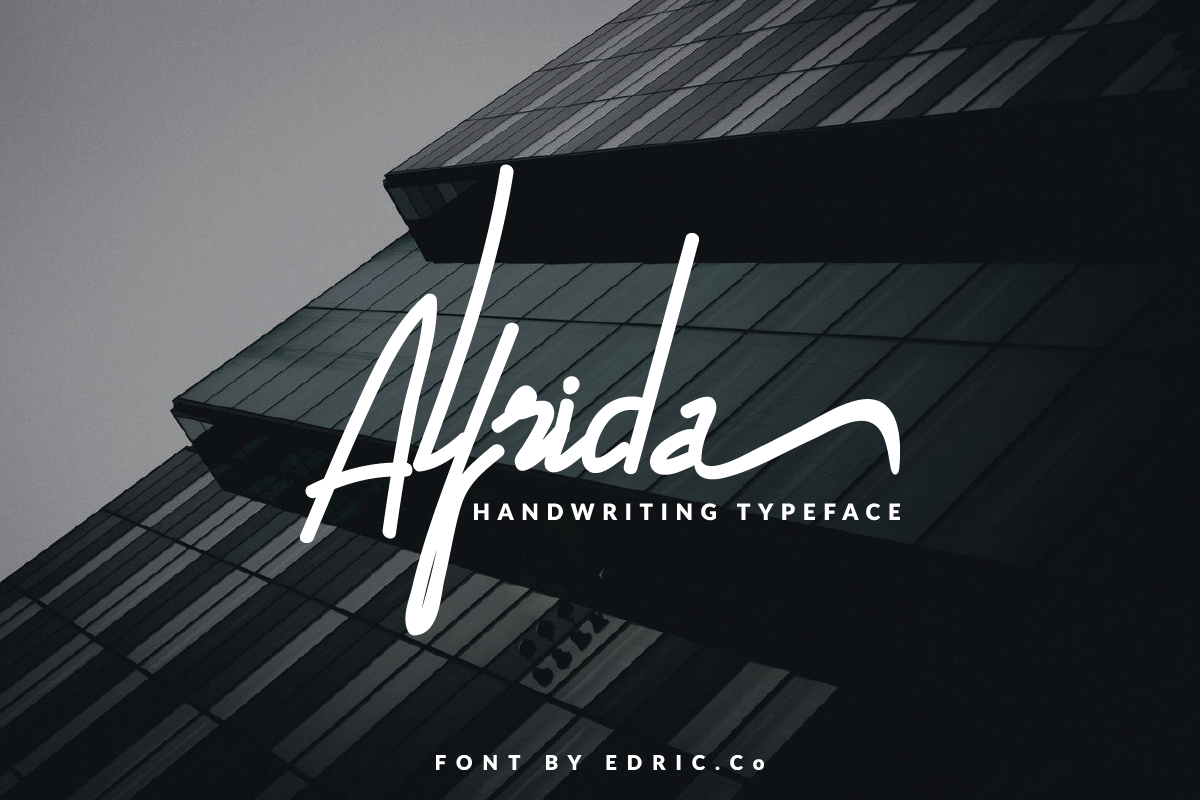
Alfrida
Alfrida-Signature
Alfrida Signature Script Font. It will be great for photography, wedding, invitation, watermark, signature online, logo, promo, boutique, fashion, designer, photographer, beauty skin car, hair salon, architect, hand written, hand made, handrawn.This font will Work on PC & Mac with Simple installations. Accessible in the Adobe Illustrator, Adobe Photoshop, Adobe InDesign, even work on Microsoft Word. It’s also PUA Encoded Characters – Fully accessible without additional design software.